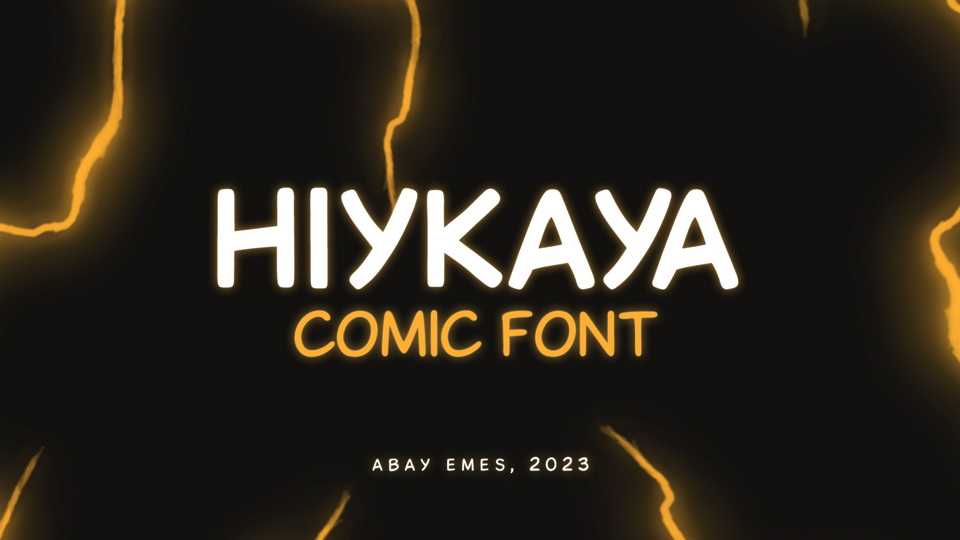
Download Hiykaya font, a comic book typeface made by a designer from Kazakhstan. The font has Cyrillic and basic Latin. Hikaya translates from Kazakh as story.
Designer: Abay Emes